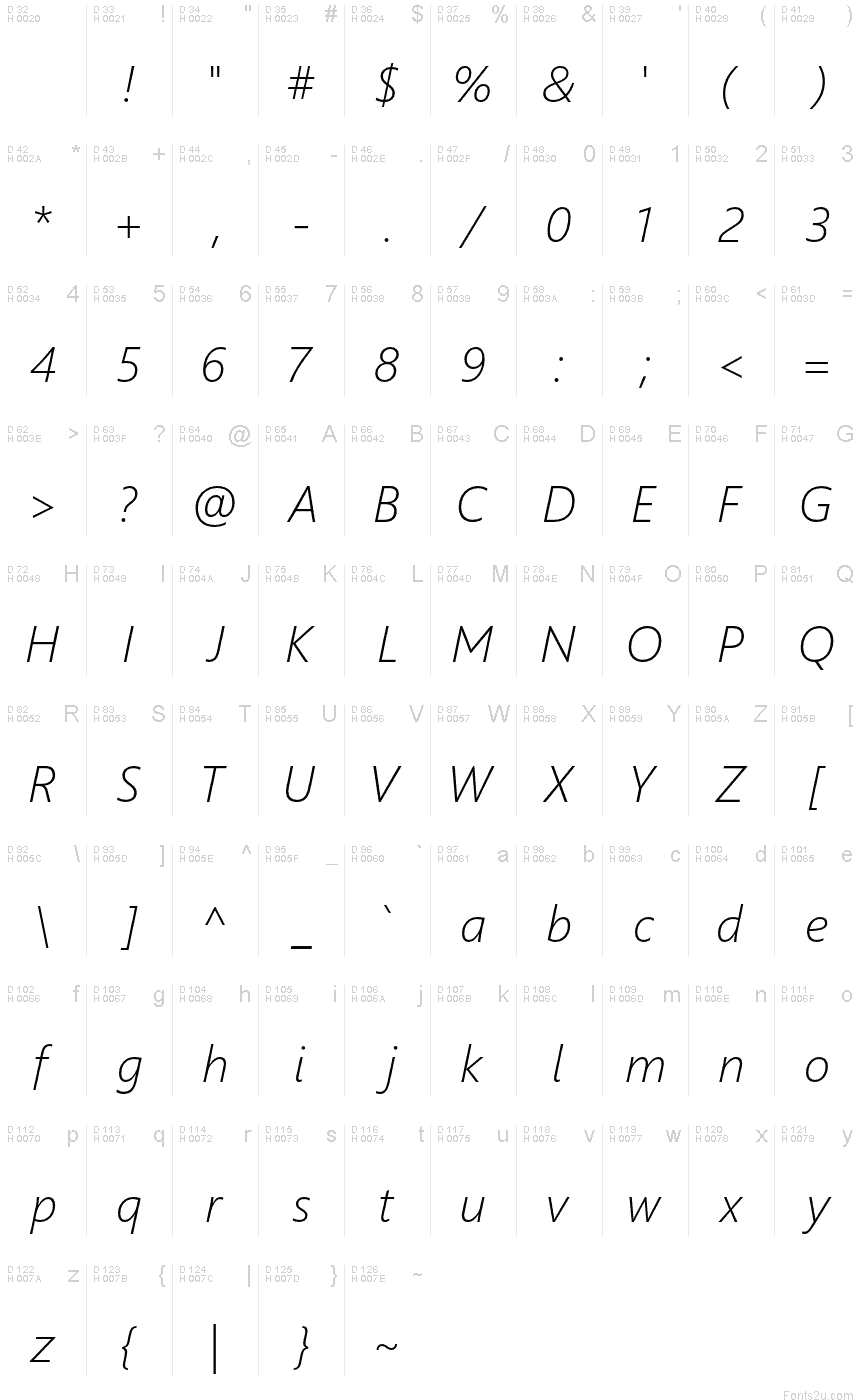
WeblySleek UI Light Italic
Webly Sleek UI Light Italic is a free light italic sans serif with tall, open forms and an unusually delicate stroke. Its gentle slant and broad curves keep the lettering fluid, while the spare construction feels crisp and contemporary.
Digital interfaces are its clearest setting, especially fashion sites and refined portfolio pages. The same airy profile suits beauty packaging and editorial mastheads. In an interface, the lettering can become part of the navigation's visual texture rather than a functional label.